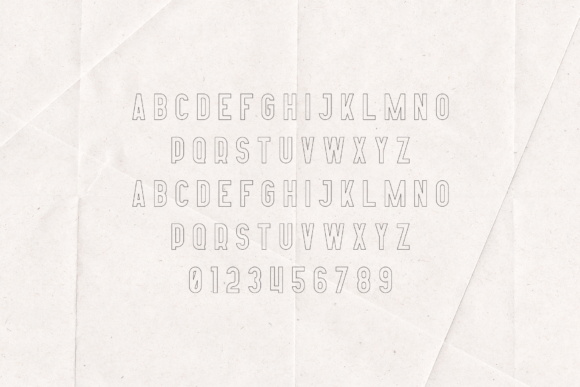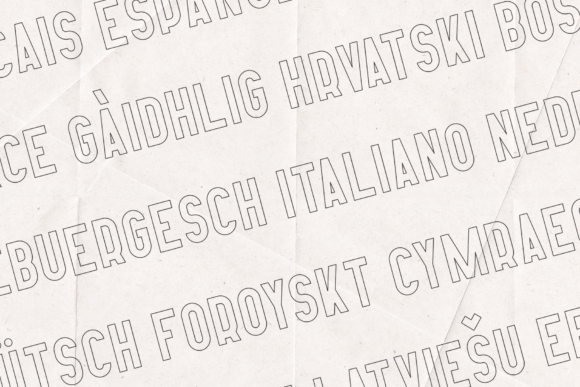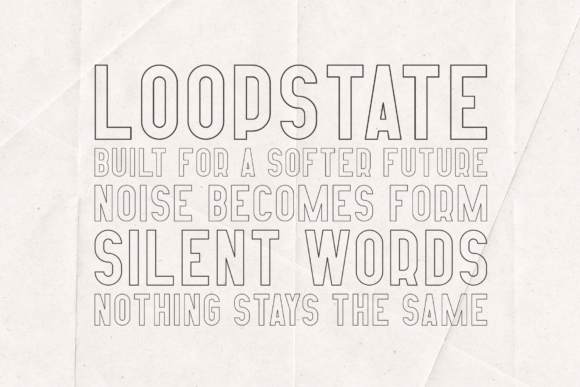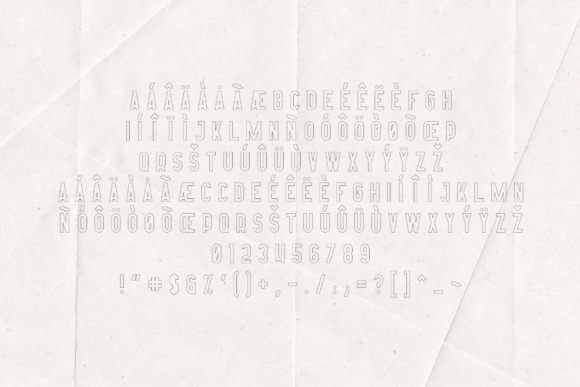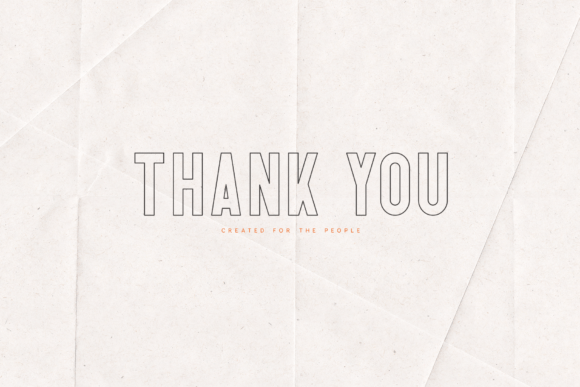
Introducing Afterclap Outline Edition Font: A Modern Sans-Serif Display Powerhouse
In the world of typography, a font can make all the difference in conveying a message effectively. For designers and crafters seeking a bold, modern, and highly legible font, Afterclap Outline Edition is an exceptional choice. This all-caps sans-serif display font is specifically designed for clean, impactful typography, making it perfect for a wide range of applications, from sports branding and street-wear logos to high-impact poster design.
Geometric Precision and Industrial Flair
Afterclap Outline Edition boasts a striking hollow design with clean, strong borders, which gives it a contemporary industrial feel. The font’s geometric precision and strong vertical structure make it highly legible, even at larger sizes. This allows designers to create visually stunning headlines, titles, and captions that demand attention. The font’s tall, narrow proportions also enable you to fit long headlines into tight spaces without sacrificing style or readability.
Engineered for Maximum Visibility
One of the standout features of Afterclap Outline Edition is its exceptional visibility. The font is engineered to perform exceptionally well in a variety of design scenarios, from digital displays to print materials. Whether you’re designing a logo, poster, or social media graphic, this font ensures that your message is conveyed clearly and effectively. The bold, modern aesthetic of Afterclap Outline Edition also makes it an excellent choice for designers seeking to create a strong brand identity.
A Designer’s Favorite for Layering
Afterclap Outline Edition is a favorite among designers for its versatility in layering. By placing the outline version over a solid color or a vibrant image, you can create a professional, multi-dimensional effect that adds depth and visual interest to your design. This technique is particularly effective for creating striking graphics, such as logos, icons, and social media graphics. The possibilities are endless, and the results are sure to impress.
Pairing with Bold Color Palettes
The athletic, modern vibe of Afterclap Outline Edition makes it an excellent match for bold color palettes. Neon orange, classic slate, and other vibrant hues complement the font’s clean lines and geometric structure, creating a visually stunning combination that’s sure to grab attention. Designers can experiment with different color schemes to create a unique look that suits their brand or design style.
Key Features of Afterclap Outline Edition
- Bold, modern aesthetic: Afterclap Outline Edition features a striking hollow design with clean, strong borders.
- Geometric precision: The font’s geometric structure and strong vertical proportions ensure exceptional legibility.
- Maximum visibility: Engineered for high-impact typography, this font performs exceptionally well in various design scenarios.
- Layering versatility: The outline version can be layered over solid colors or images for a multi-dimensional effect.
- Pairs well with bold color palettes: Neon orange, classic slate, and other vibrant hues complement the font’s modern aesthetic.
Afterclap Outline Edition is a powerful, modern sans-serif display font that’s perfect for designers and crafters seeking a bold, highly legible typeface. Its geometric precision, strong vertical structure, and striking hollow design make it an excellent choice for sports branding, street-wear logos, and high-impact poster design. With its exceptional visibility, layering versatility, and pairing with bold color palettes, this font is sure to become a staple in any designer’s toolkit.